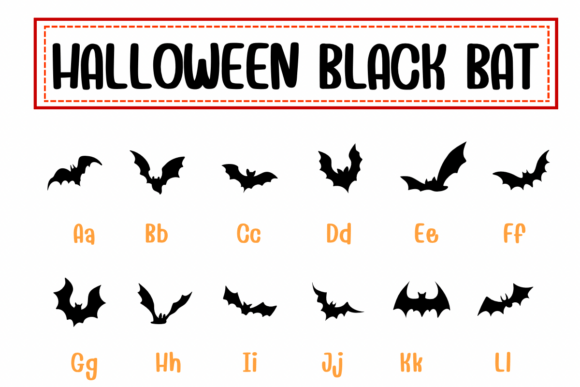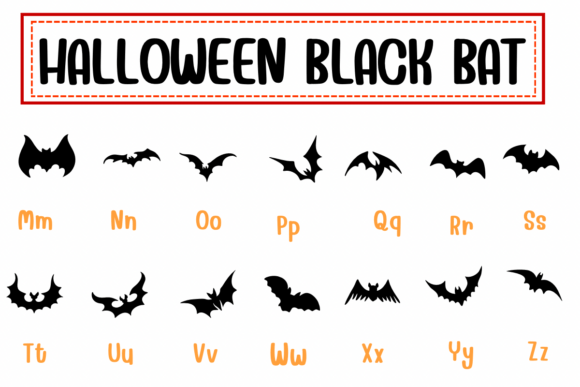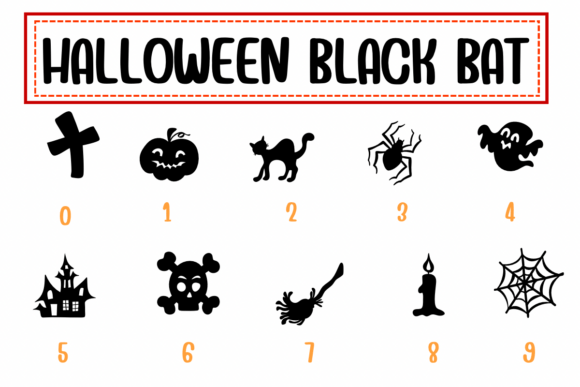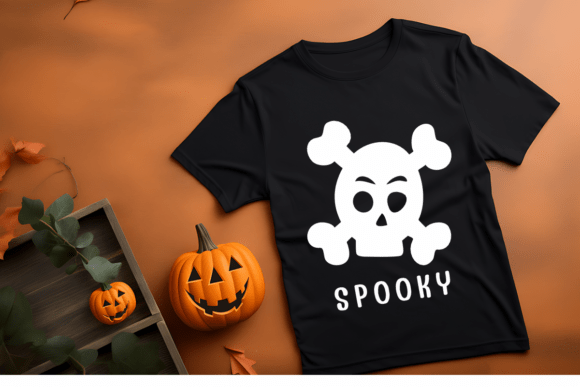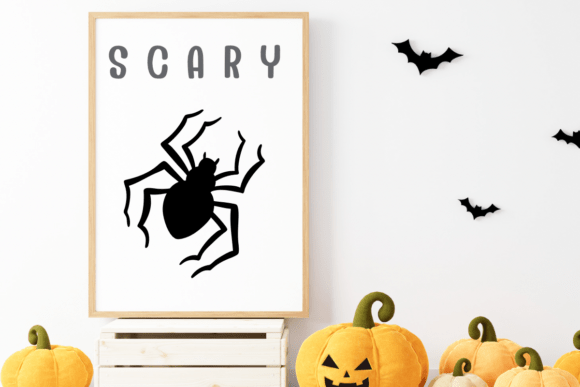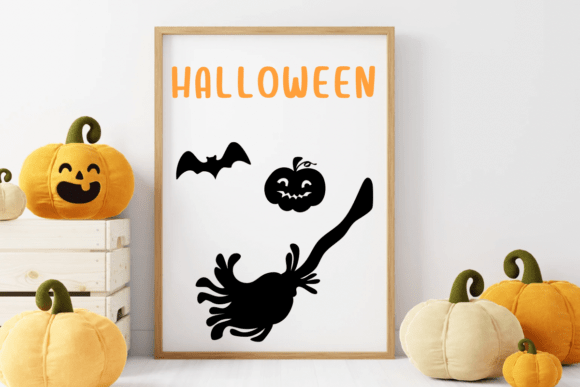
Unleash the Spooky Spirit with Halloween Black Bat Font
As the spookiest time of the year approaches, designers and crafters are on the lookout for the perfect typography to capture the essence of Halloween. Look no further than the Halloween Black Bat Font, a thematic symbol typeface that embodies the dark, playful spirit of the holiday. This font is a must-have for anyone looking to add a touch of eerie elegance to their designs.
A Font like No Other
The Halloween Black Bat Font is a unique and captivating typeface that features solid black silhouettes of bats in flight. Each character is carefully crafted to showcase a different wing shape, pose, and angle, creating a sense of motion and diversity. The bold and uniform weight ensures that the designs remain visually striking, even at smaller sizes. The clean and graphic silhouettes favor strong outlines over interior detail, making them ideal for quick recognition.
Perfect for Decorative and Seasonal Use
This font is designed specifically for decorative and seasonal use, making it perfect for a wide range of Halloween-themed projects. Use it to create eye-catching party invitations, posters, greeting cards, stickers, and festive digital graphics. The font also works well as embellishments in scrapbook projects or as accent icons in Halloween-themed branding. Whether you’re a designer, crafter, or DIY enthusiast, this font is sure to become a go-to in your creative arsenal.
Spooky yet Fun
The Halloween Black Bat Font strikes the perfect balance between spooky and fun. The eerie motifs are offset by a lighthearted charm, making it ideal for designs that need to be both haunting and playful. The consistent boldness of the font gives it a cohesive look, while the variation in bat forms prevents repetition and adds liveliness. This font is sure to add a touch of Halloween magic to any project.
Evolution of a Font
The Halloween Black Bat Font has evolved to become a versatile and dynamic typeface. Its design is rooted in the classic symbols of Halloween, yet it has been refined to meet the needs of modern designers and crafters. The font’s evolution is a testament to the power of typography to evoke emotions and create connections. Whether you’re looking to create a bold statement or a subtle hint of Halloween spirit, this font is sure to deliver.
Design and Crafting Inspiration
The Halloween Black Bat Font is a treasure trove of creative possibilities. Here are a few ideas to get you started:
- Create a spooky party invitation with a bat silhouette as the centerpiece.
- Design a Halloween-themed poster featuring a bold, black bat font.
- Add a touch of eerie elegance to your scrapbook projects with bat embellishments.
- Use the font to create a set of festive stickers or digital graphics.
To get the most out of the Halloween Black Bat Font, here are a few tips and tricks:
- Experiment with different sizes and arrangements to create visual interest.
- Pair the font with other Halloween-themed elements, such as pumpkins or ghosts.
- Use the font to create a cohesive look across multiple design elements.
The Halloween Black Bat Font is a unique and captivating typeface that is sure to become a staple in any designer’s or crafter’s toolkit. Its bold, black silhouettes and playful spirit make it perfect for a wide range of Halloween-themed projects. Whether you’re looking to create a spooky party invitation or a festive digital graphic, this font is sure to deliver. So why wait? Unleash the spooky spirit and get creative with the Halloween Black Bat Font!